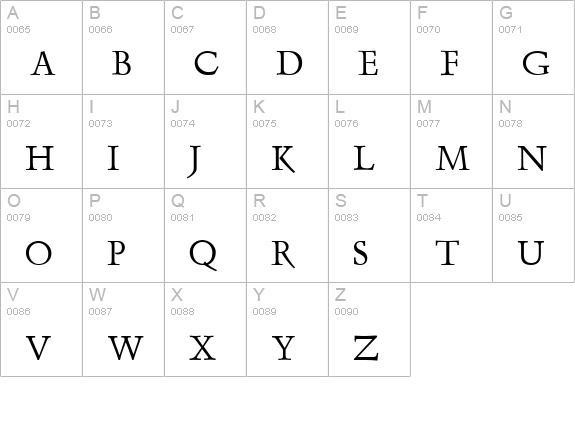
Dauphin font is a sophisticated and elegant typeface that exudes timeless charm and classic appeal. Its delicate serifs and graceful letterforms make it perfect for adding a touch of refinement to your designs. Whether you're working on invitations, branding materials, or editorial projects, Dauphin font will elevate your creations with its subtle beauty. What's even better is that Dauphin font is completely free to download at FontsMarket.com. You can easily access this exquisite typeface and enhance your projects with its graceful aesthetic without any cost. Embrace the beauty and versatility of Dauphin font in your designs and let its timeless elegance shine through.